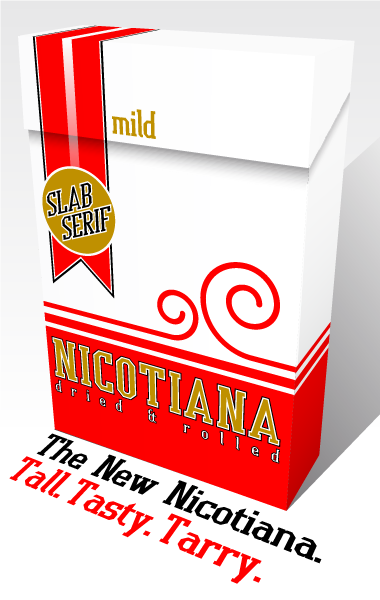
This one's been lying around in the private box for quite a while because I didn't find the inner peace to do an extended character set. Originally I just trying to get an acceptable A using a 2x1 filter setting, but somehow it grew to a whole typeface. (That makes any word written in capital letters look like a tobacco brand, hence the name...)
(My favourite letter is by the way the ß... Inspired by Berlin street signs.)
Hm... Can you use "tasty" for cigarettes? Or is that only for stuff you eat?
I'm sure the American cigarette companies would like to label their goods as tasty, but I doubt the FDA (Food and Drug Administration) would let them. :)
Extremely well executed. Not a bum note in site. Perfectly crafted and very usable..... then there's the superb sample, truly brilliant.
So balanaced, so readable.
As to 'tasty' ... I guess it depends on what you roll with the tobacco :)
Tasty: I guess it, applies to everything you put in your mouth, including non-food items, e.g. toothpaste, chewing gum, tobacco (for chewing). I'm not sure taste is a major factor of the seduction of cigarettes. Nice slab serif, and professional demo pic. 10/10